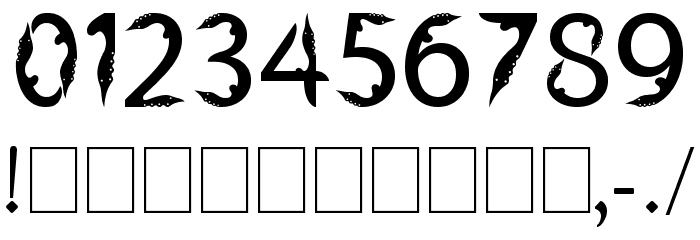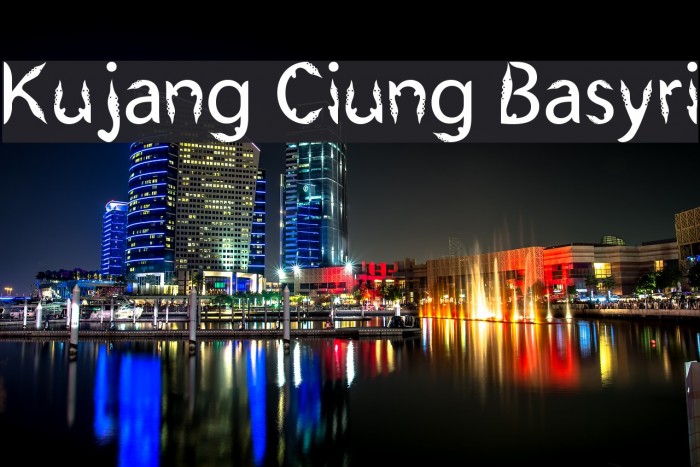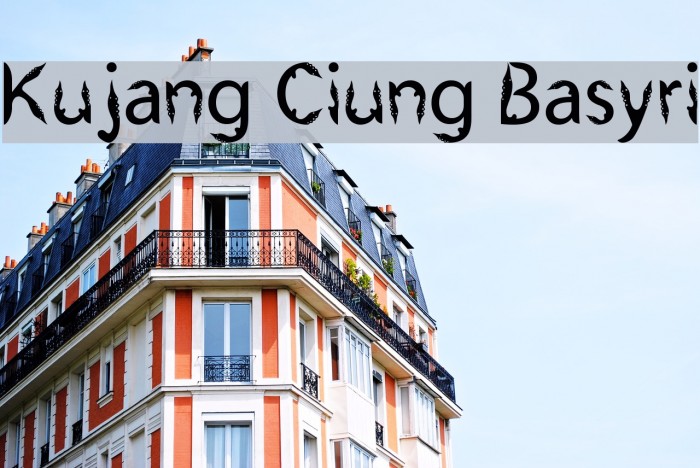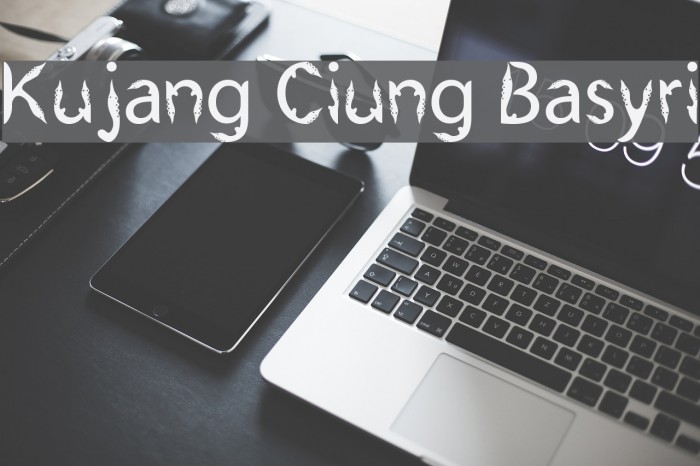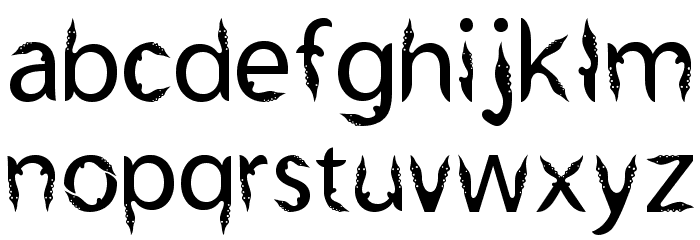
Kujang Ciung Basyri Font
This font features a unique and edgy design with jagged, thorn-like extensions protruding from each character, giving it a wild and untamed appearance. The uppercase and lowercase letters maintain a consistent style, with sharp angles and irregular edges that suggest a sense of movement and energy. The numbers follow the same aesthetic, ensuring a cohesive look across all characters. The special characters are similarly styled, making them suitable for creative and bold design projects. This font is ideal for projects that require a dramatic and eye-catching typeface.
A bold, jagged font with thorn-like extensions for a wild, energetic look.
• Proposed Projects: Perfect for album covers, posters, branding for edgy products, or any project needing a dramatic flair.